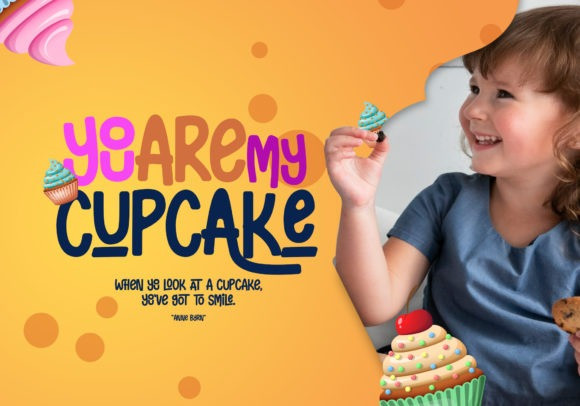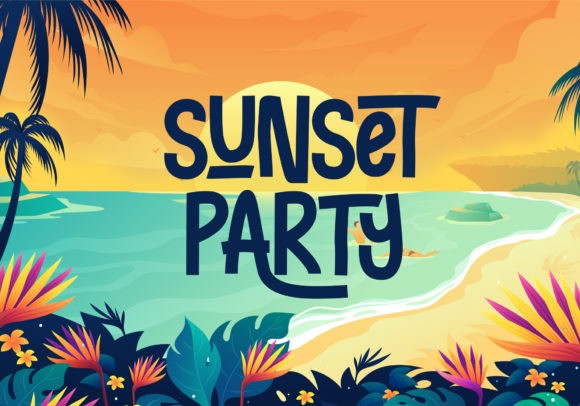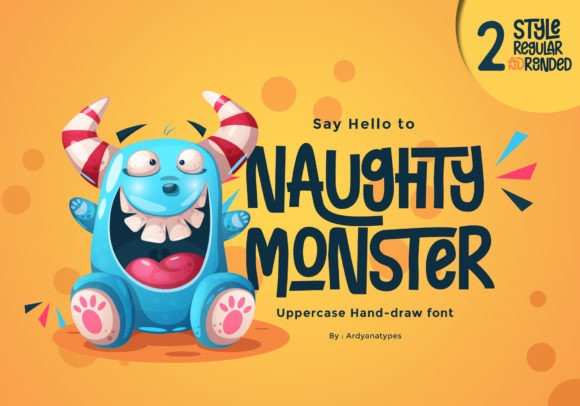
Naughty Monster Display Font
Naughty Monster is a cute and casual display font with an incredibly friendly feel. This font is the perfect fit for all of your logos, branding, social media, and crafty DIY projects.